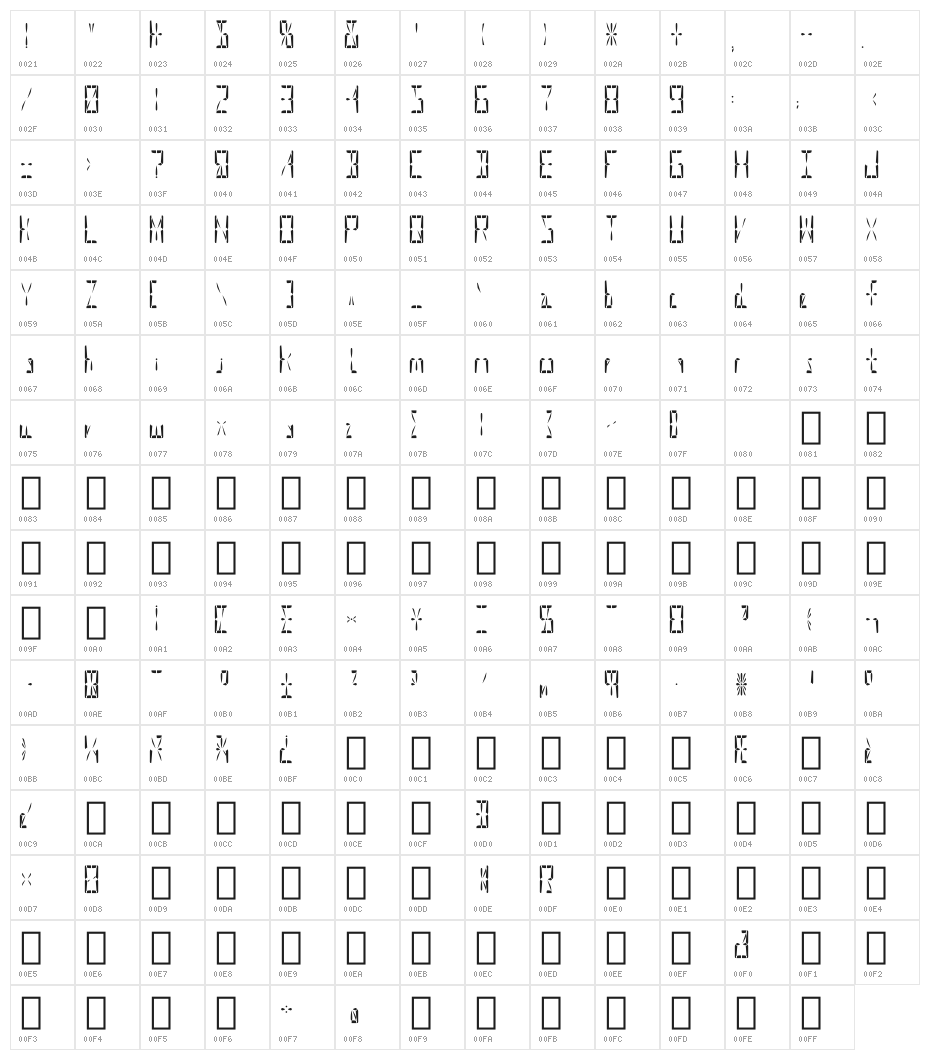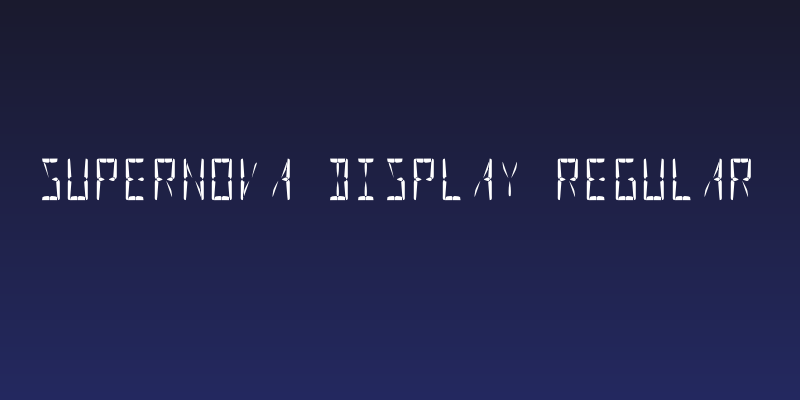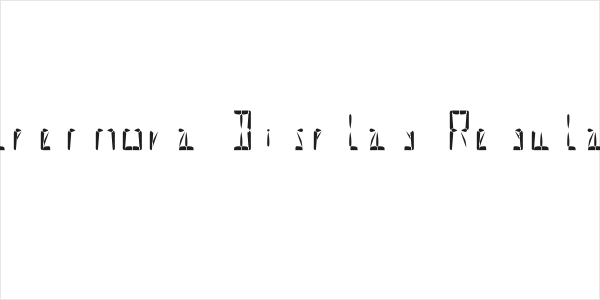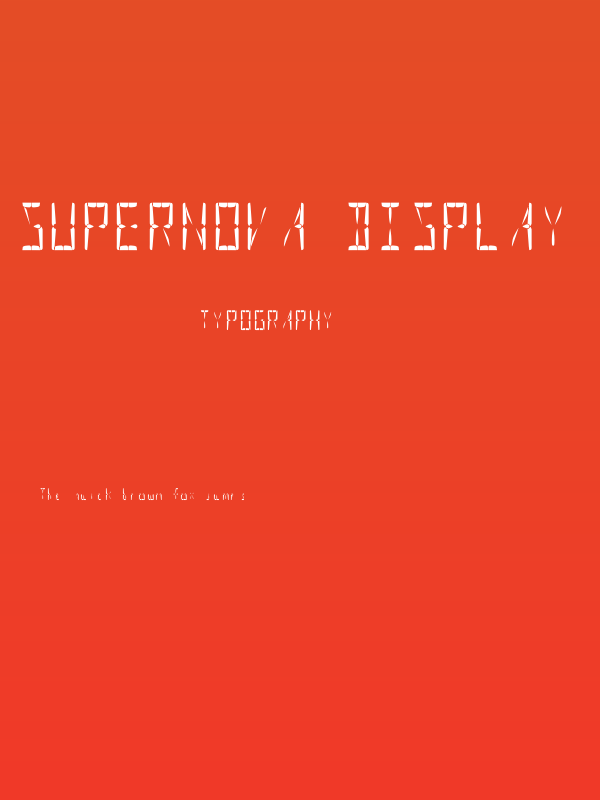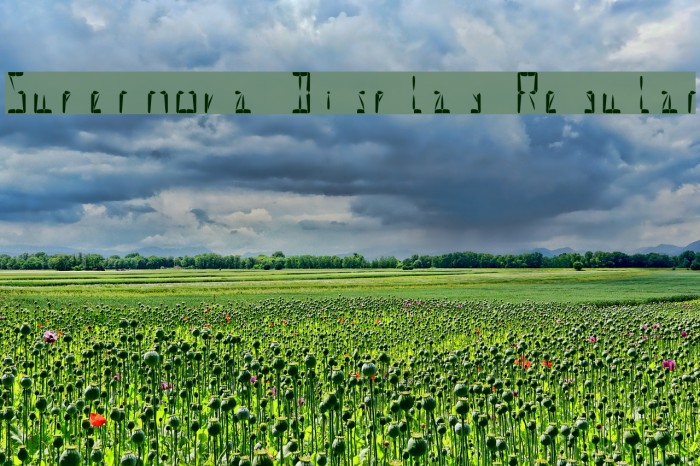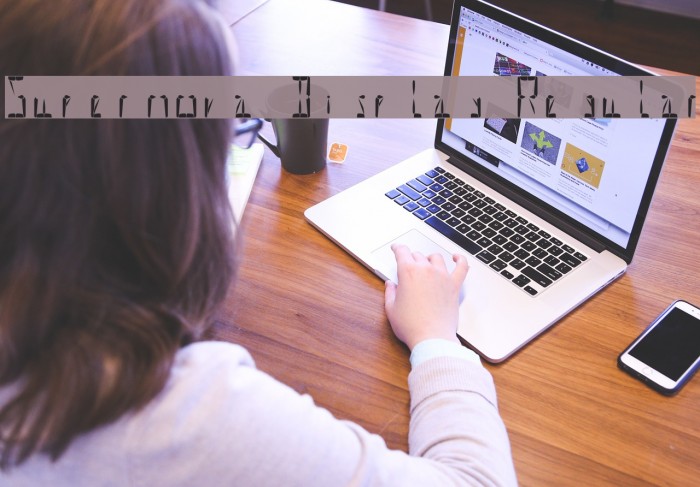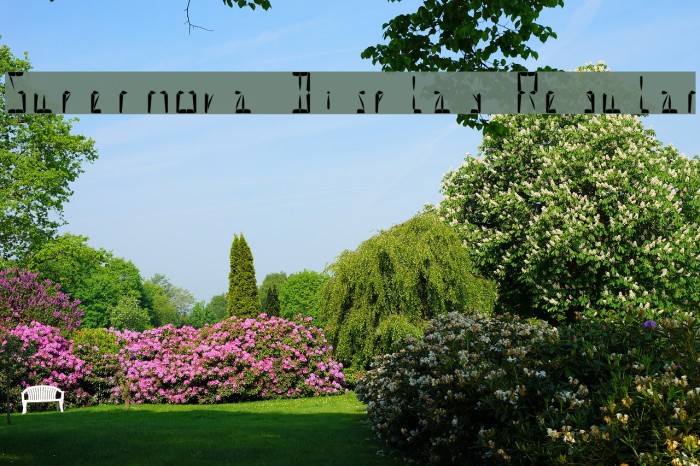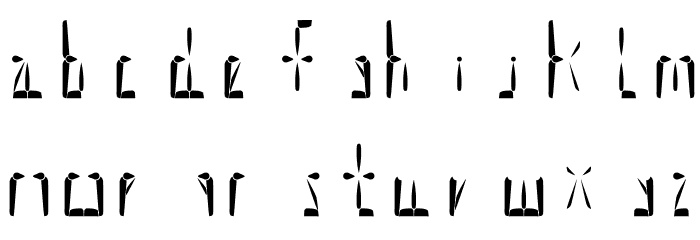
Supernova Display Regular Font
Supernova Display Regular Description
This font features a highly decorative and futuristic style, characterized by its unique geometric shapes and angular forms. Each character is constructed with a series of lines and curves that create a sense of movement and dynamism. The design is reminiscent of digital displays or sci-fi aesthetics, making it stand out with its bold and innovative appearance. The uppercase and lowercase letters maintain a consistent style, while the numerals and special characters integrate seamlessly into the overall design. This font's distinctiveness makes it suitable for projects that require a modern and eye-catching typeface.
| Proposed Projects | Ideal for sci-fi themed designs, digital displays, posters, and branding that requires a modern and striking look. |